Instant Font Identification Gratification
Font_ID is a new Twitter account created by Stephen Coles of the website Typographica.org and, until recently, a key member of the FontShop team.
The concept behind @Font_ID is simple: Send Stephen an image of a typeface, and he will reply with the font name and a relevant URL. He’ll even suggest alternatives faces.
I plan on reading the Font_ID Twitter feed often. Even when (or maybe especially when) Stephen’s stumped, it’s fun to see the typeface that foiled him. For example, Nick Sherman submitted this 1841 newspaper headline:
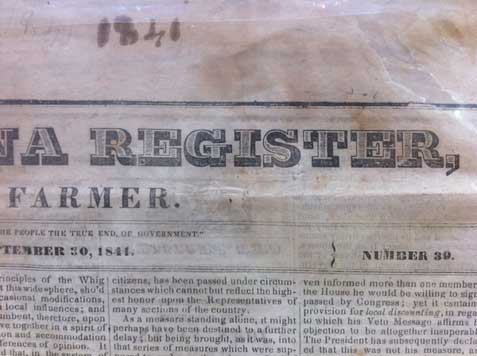
Stephen replied that while the face was unknown to him, he’s called in a specialist, @Woodtyper, and he can suggest an alternate: Sutro. How’s that for a satisfying 30-second swing through type history?